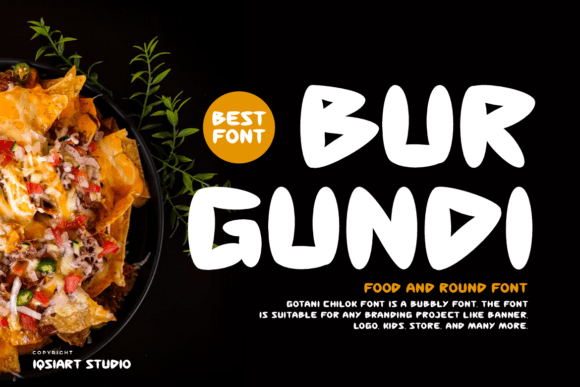
Introduction to Burgundi Font
Burgundi is a bold, bubbly display font with a tasty personality.
Its round and playful letterforms make it a perfect match for food packaging, snack branding, kids’ projects, and anything that needs a fun, delicious twist Eye-catching and easygoing, Burgundi adds instant flavor to your designs.